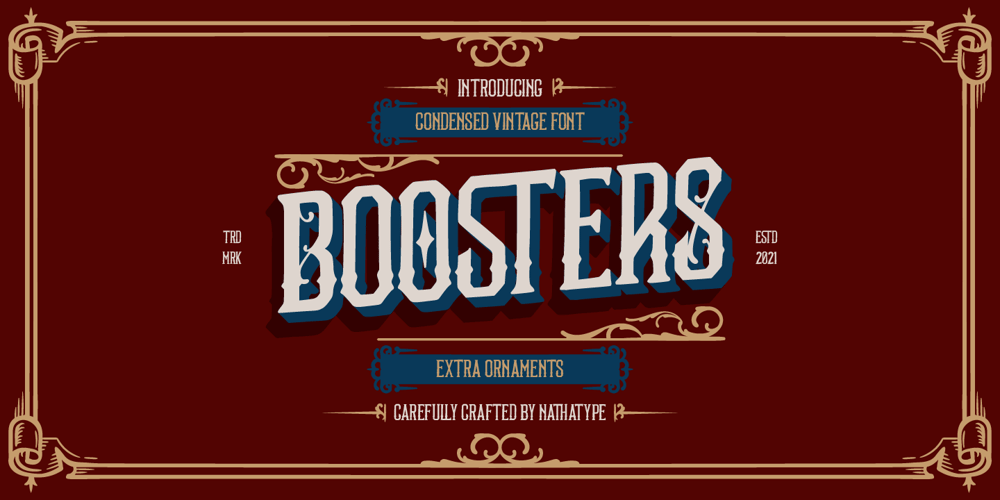
Boosters
Boosters font
Boosters Font Family was designed by Donis Miftahudin and published by Nathatype. Boosters contains 2 styles and family package options. Looking for a vintage and bold font to captivate your audience or clients,? If you need to create have a t-shirt branding company, or need to create a new menu – then this is the perfect font for you. Boosters-A Vintage FontBoldy Vintage is a bold, fun, and vintage typeface that is made in uppercase and lowercase. This font is the best to maximize the amount of street vibe and vintage vibes. Ideal to create amazing headings, logos, menus, and social media graphics.Our font always includes Multilingual Support to make your branding reach a global audience. Features: Ligatures Alternates Bonus Oranament PUA Encoded Numerals and Punctuation Thank you for downloading premium fonts from Nathatype